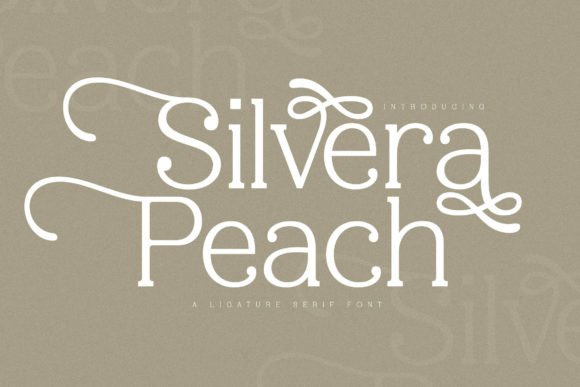
Welcome to the world of Silvera Peach Font, a serif typeface that captivates with its timeless elegance. This font, born from the creative minds at Storytype Studio, offers a captivating fusion of modern and classic elements.
Silvera Peach rises above the ordinary, embodying a style that resonates with sophistication and luxury. Its meticulously crafted curves and delicate serifs dance harmoniously, creating a visual symphony that commands attention. This font was born to adorn logos, leaving an unforgettable impression wherever it's seen.
Imagine your business card, the gateway to potential clients, adorned with the Silvera Peach Font. Its inherent elegance will elevate your brand, projecting an image of professionalism and prestige. This font is the perfect ambassador for your company, silently communicating your dedication to excellence and attention to detail.
But Silvera Peach isn't limited to the corporate world. It flourishes in the realm of creativity, adding a touch of timeless charm to book and movie titles, fashion brands, magazines, and clothing designs. Its versatility knows no bounds, adapting effortlessly to any project that demands a touch of sophistication.
This font is a storyteller, a weaver of visual narratives. Its carefully balanced letterforms create a seamless flow of words, guiding readers through your creations with effortless grace. Whether you're crafting a compelling article or a captivating social media post, Silvera Peach ensures your message is delivered with impact and elegance.
Bridging the gap between tradition and innovation, Silvera Peach Font stands as a testament to the enduring power of timeless design. Its classic serif structure provides a solid foundation, while its modern touches add a breath of fresh air, resulting in a typeface that feels both familiar and refreshingly new.